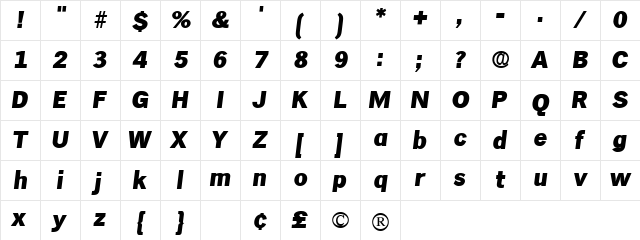
Hiero Display SSi Italic
Design Context for Hiero Display SSi Typeface
Hiero Display SSi is built around its visual character rather than neutral utility — its distinctive forms are designed to make an impression at display sizes. The dynamic lean of this cut emphasises speed and emphasis in any layout.
Font Pairing: Pair with a clean neutral sans-serif for body copy to let Hiero Display SSi's character lead without overwhelming the composition.
Pro Tip: Use Hiero Display SSi exclusively at display sizes — it was designed to be seen, not read at length. Let a neutral companion handle body copy.